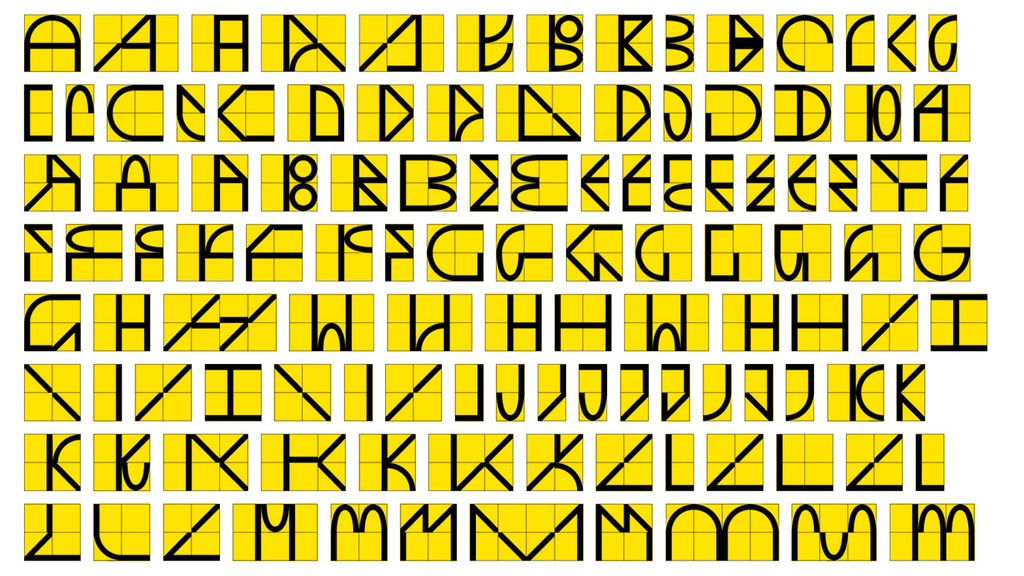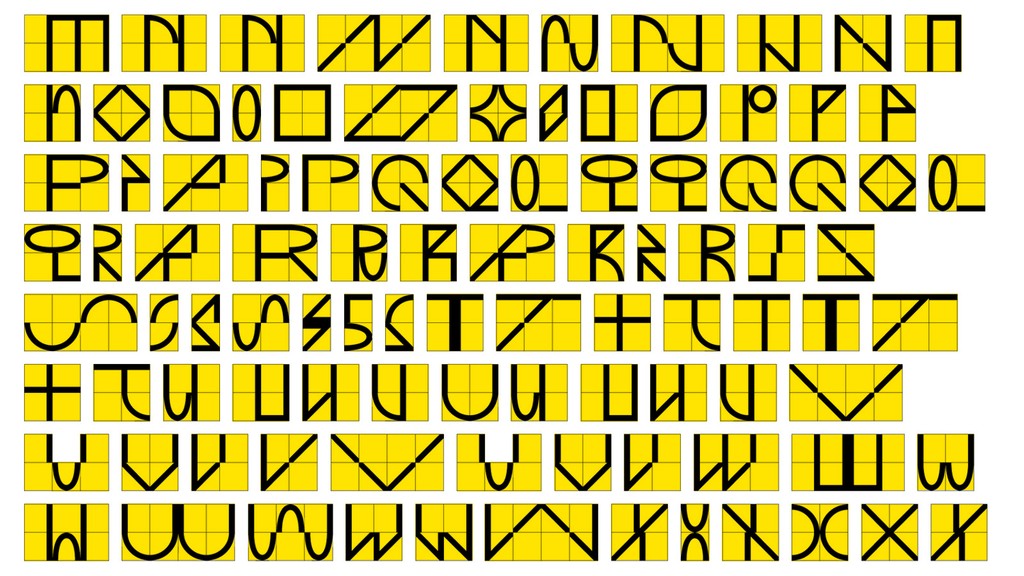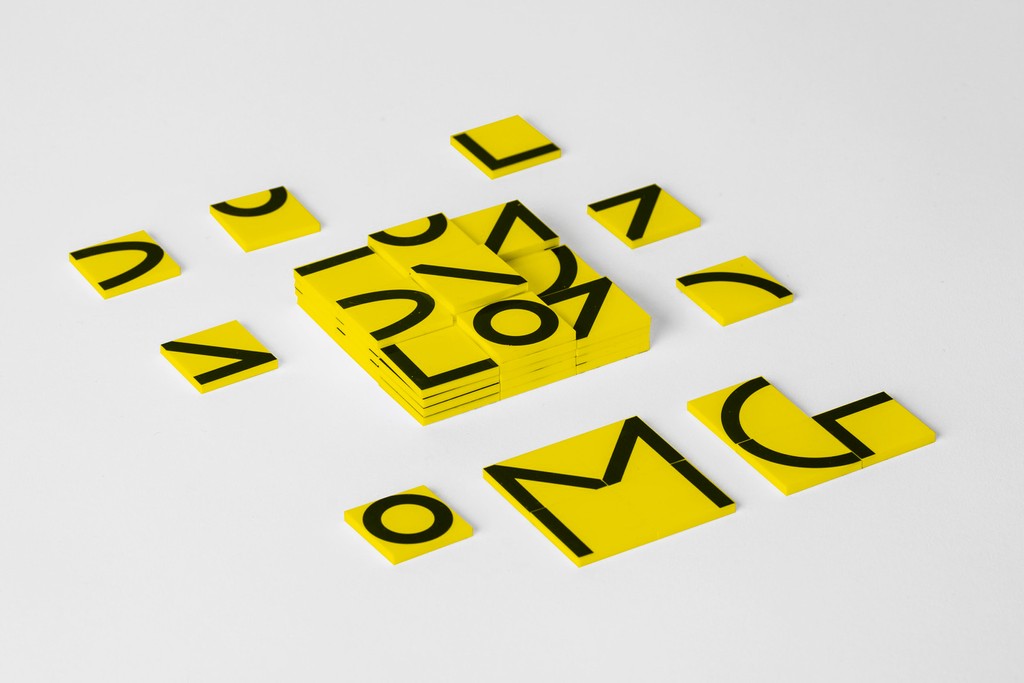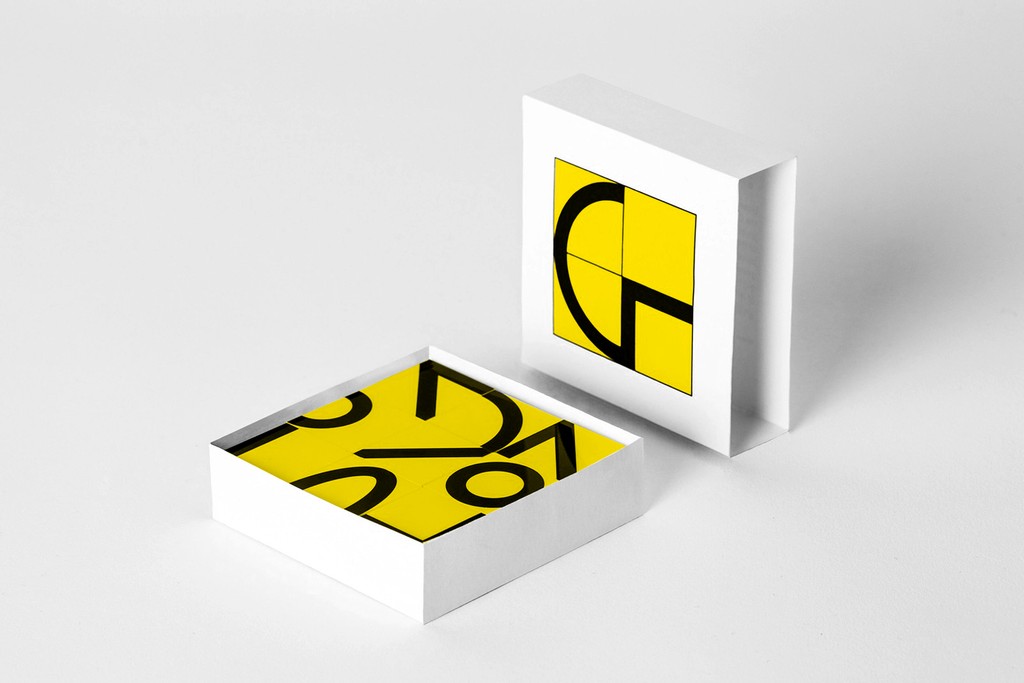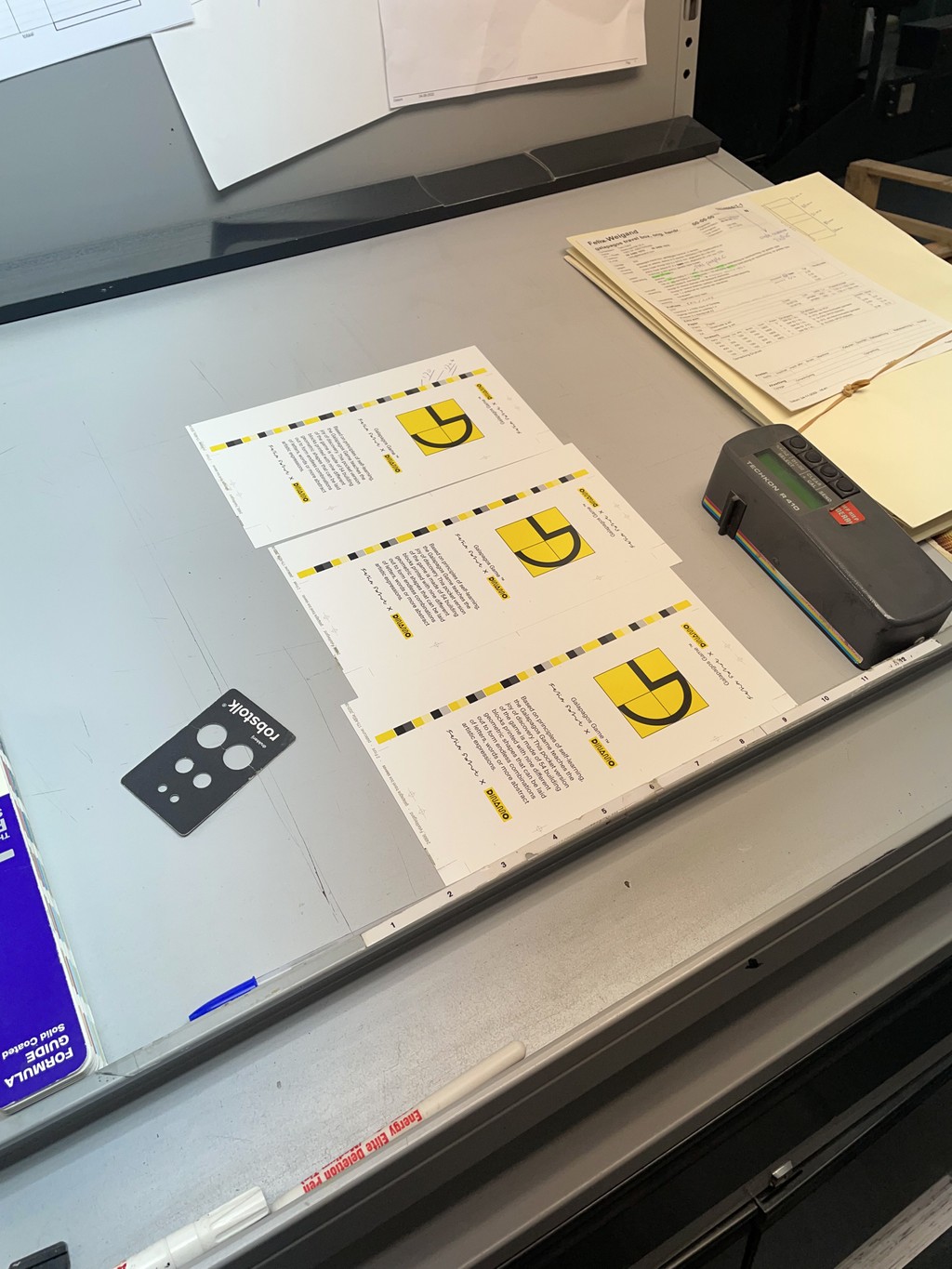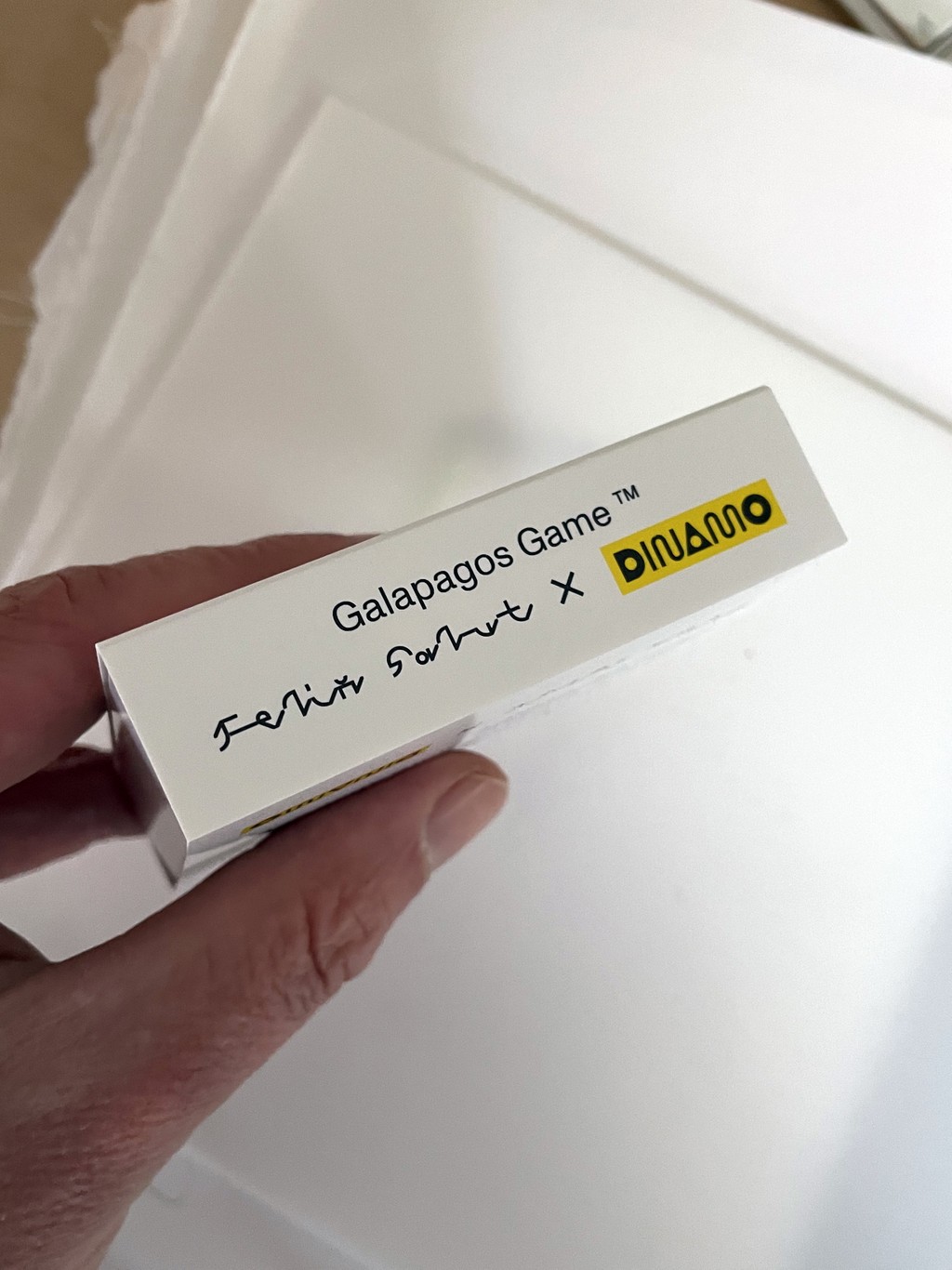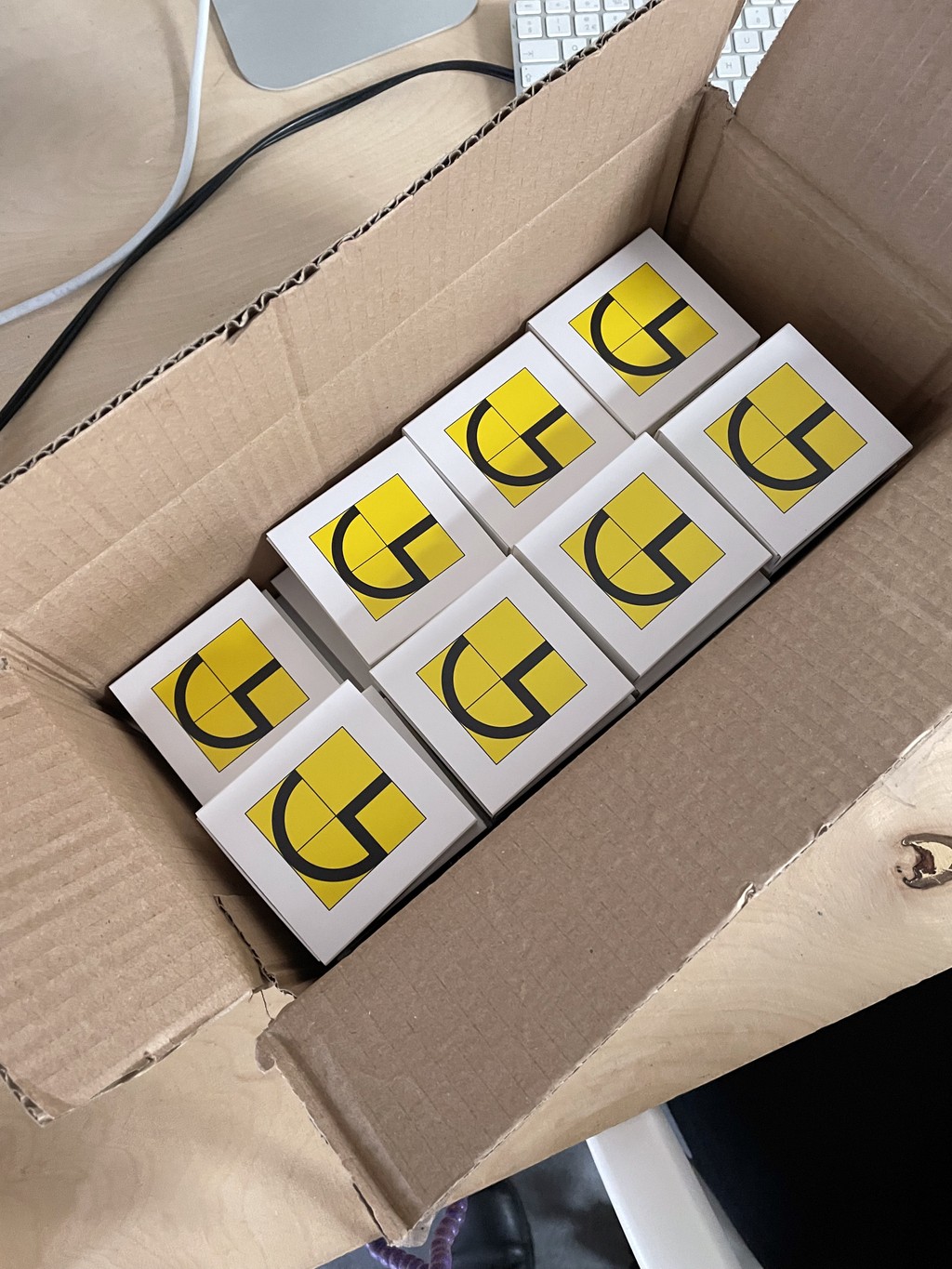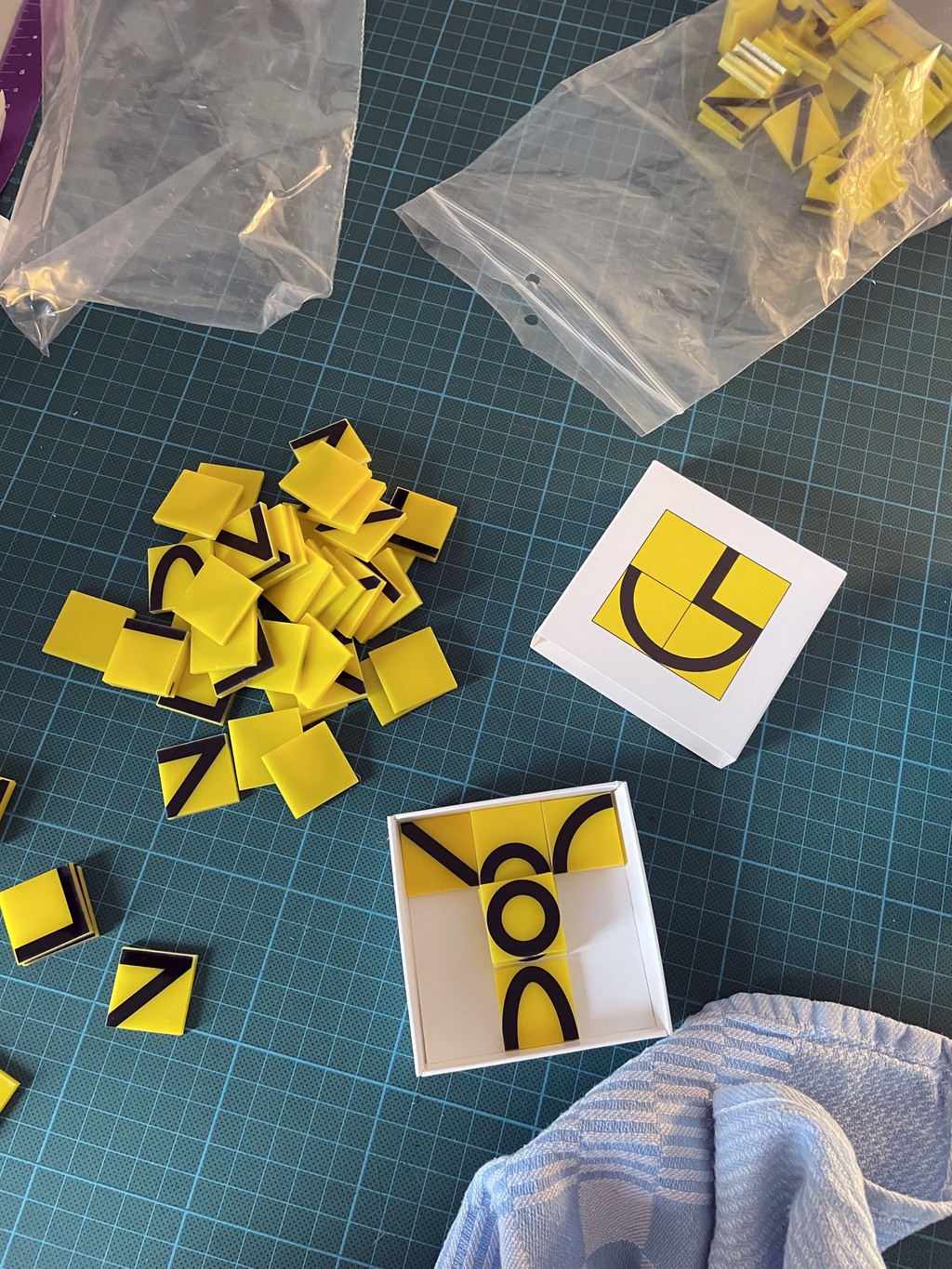
Galapagos Game
Galapagos Game Felix Salut
Based on principles of self-learning, the Galapagos Game teaches the joy of discovery. This pocket version of he game is made of 54 building blocks printed with nine different geometric shapes.
It can be laid out to form endless combinations of letters, words or more abstract artistic expressions. The building blocks are made of white acrylic and silkscreened in blue. Each block measures 25 × 25 × 3 mm.
The game is packaged in a sturdy box with a matchbox-style sleeve.